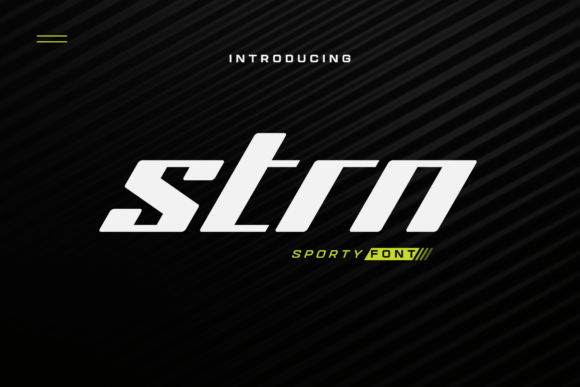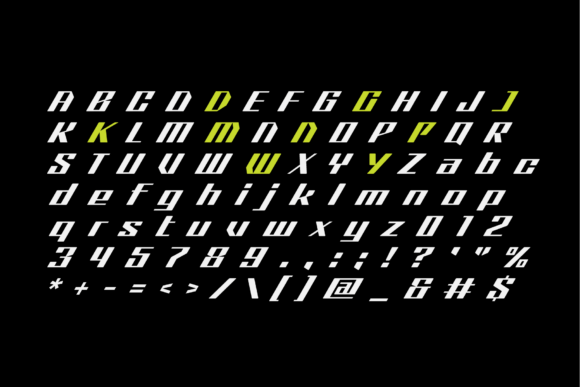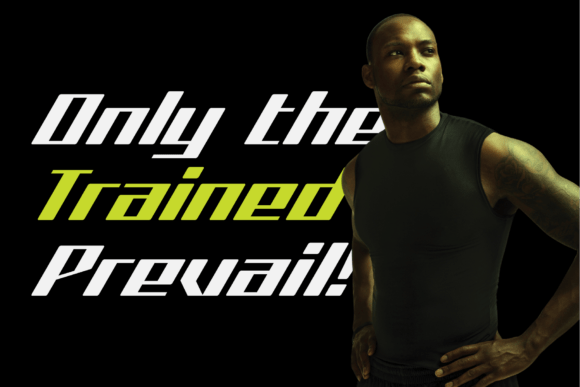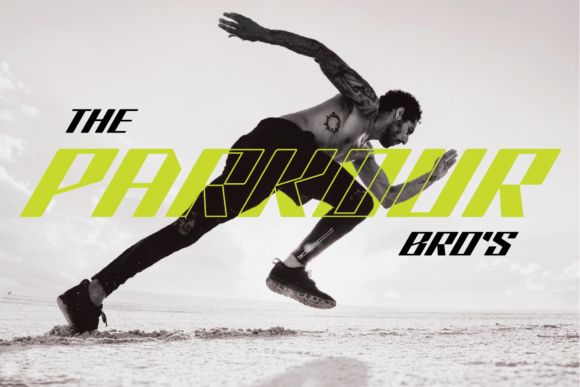
Strn Font: Bold & Edgy Display Font for Sports Branding!
About the Strn Font
Elevate your designs with Strn Font, a font that combines sophistication with readability. Strn is a high-speed, sporty font built for brands that move fast and think faster. Designed for athletic, automotive, and action-driven visuals, it features a fast, italicized stance and sharp angles that embody motion, agility, and strength. Ideal for sports branding, fitness apparel, and dynamic designs, Strn is the perfect choice for those who demand a bold, edgy, and futuristic typeface.
Strn Font Usage Examples
Strn Font Example